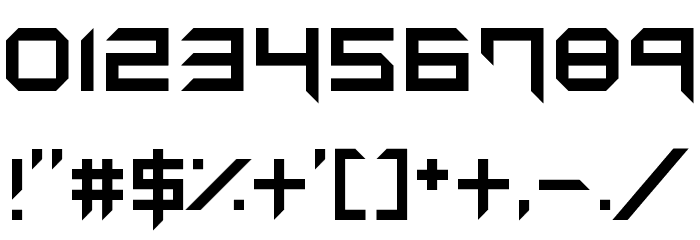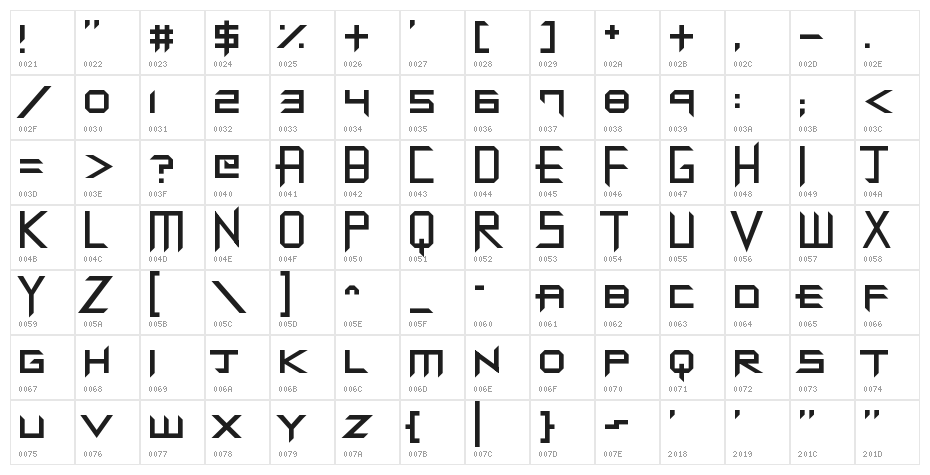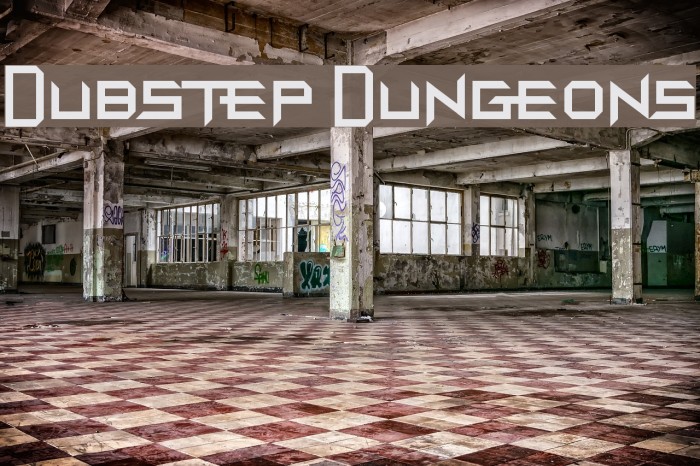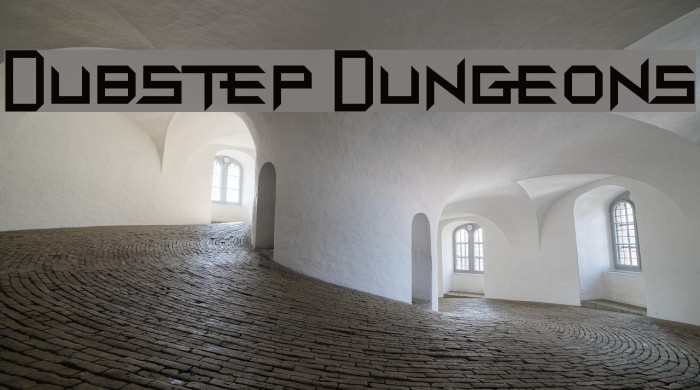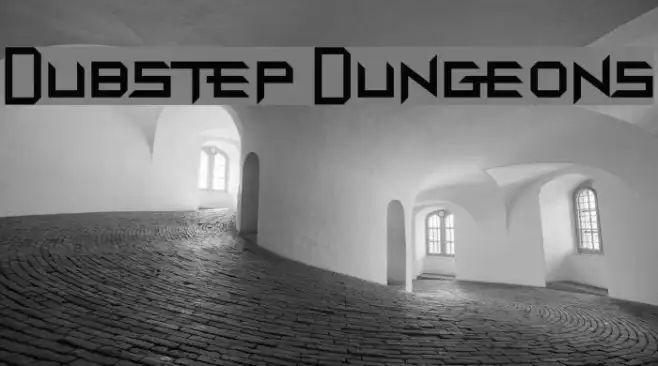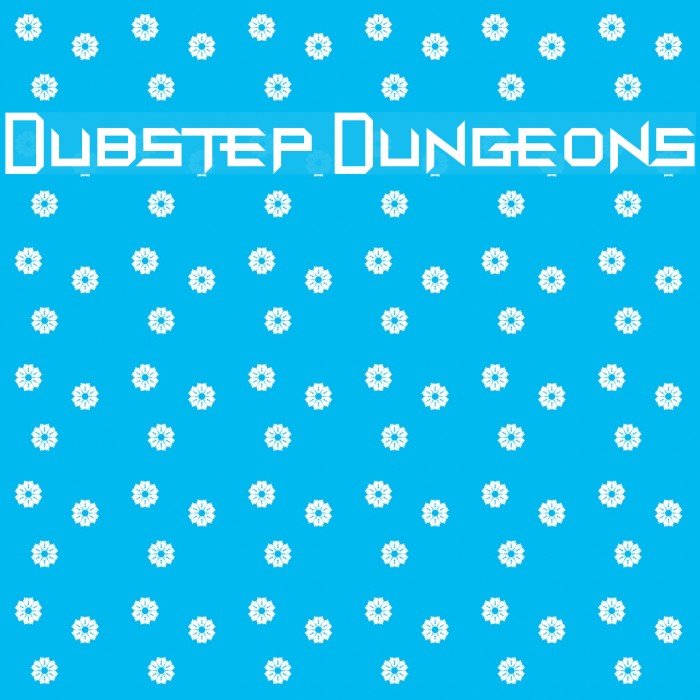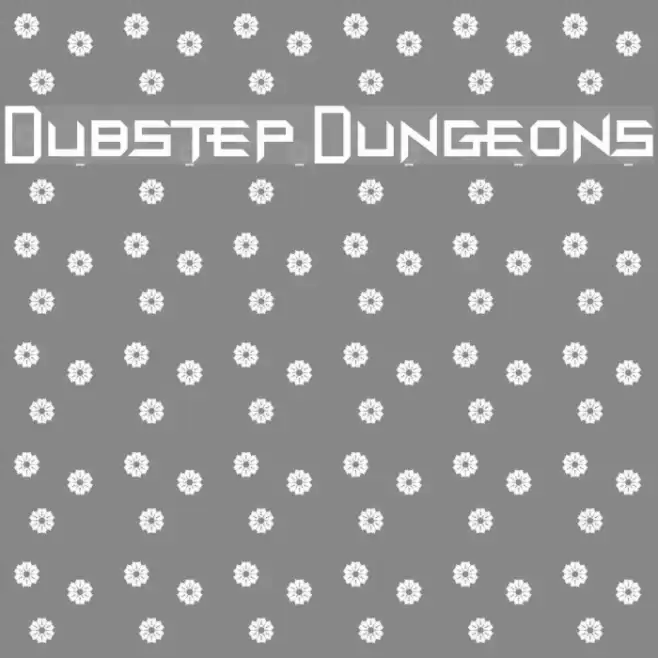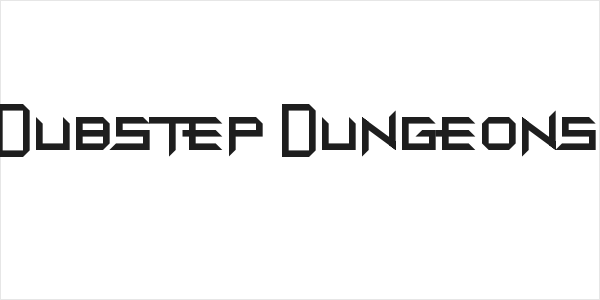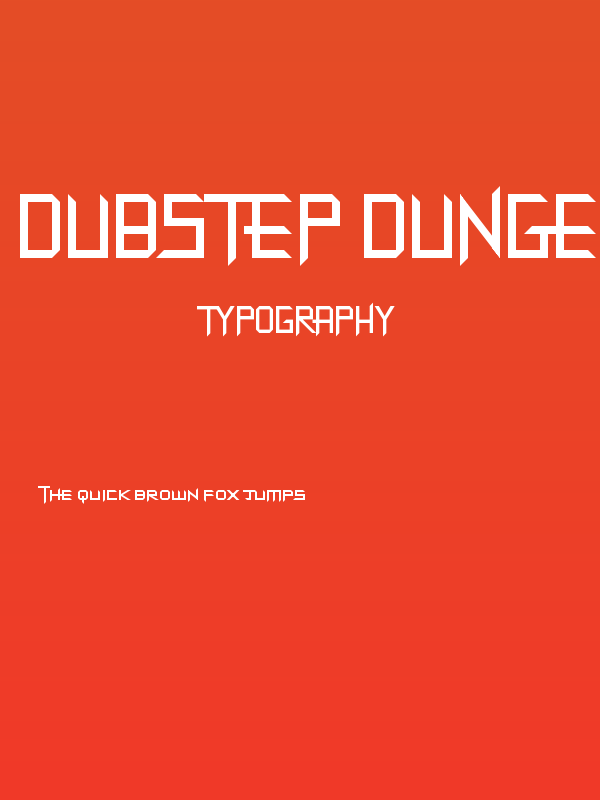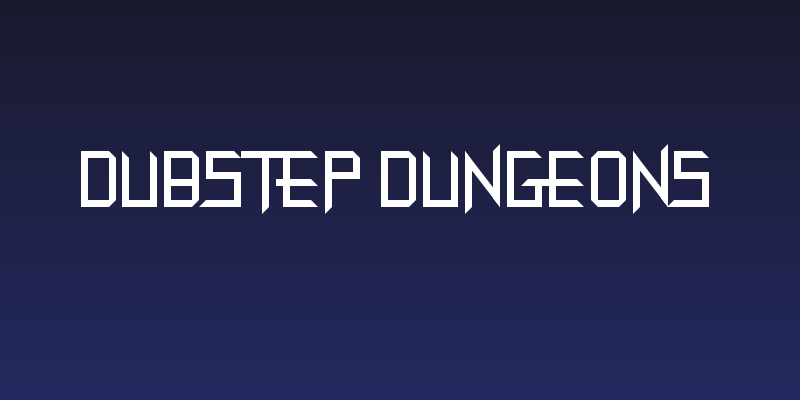
Dubstep Dungeons Font
Dubstep Dungeons Description
This font features a bold, geometric design with sharp angles and a futuristic aesthetic. The characters are constructed with straight lines and pointed edges, giving it a distinct, edgy appearance. The uppercase and lowercase letters maintain a consistent style, with uniform stroke widths and angular cuts. The numerals and special characters follow the same design principles, ensuring a cohesive look across all glyphs. This font's unique style makes it stand out, suitable for projects that require a modern and dynamic feel.
| Proposed Projects | Ideal for video game titles, tech-themed posters, music album covers, and branding for modern, edgy products. |